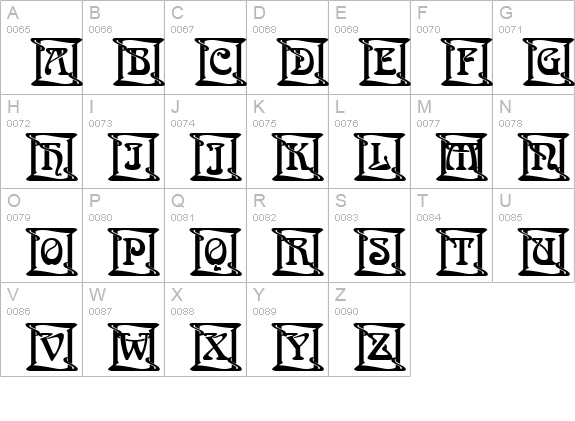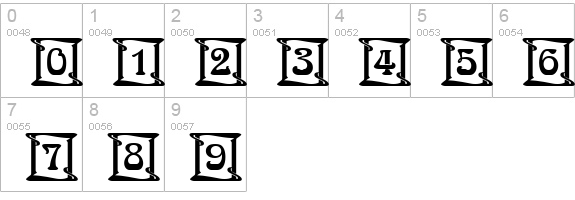
ArnoldBoeIniD Font Details
ArnoldBoeIniD is a striking and versatile display font that exudes a sense of modernity and creativity. Its unique letterforms and stylish curves make it perfect for a wide range of design projects, from branding to posters to social media graphics. This font is ideal for making a bold statement or adding a touch of sophistication to your designs. With its clean lines and eye-catching details, ArnoldBoeIniD is sure to capture the attention of your audience and leave a lasting impression. What's even better is that ArnoldBoeIniD is completely free to download at FontsMarket.com, making it easily accessible for all designers and creatives. Don't miss out on this fantastic opportunity to elevate your designs with this stunning font. Download ArnoldBoeIniD today and watch your creations come to life!